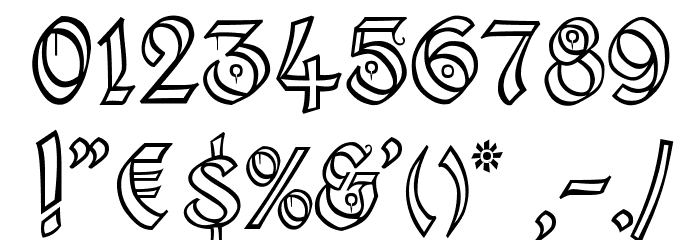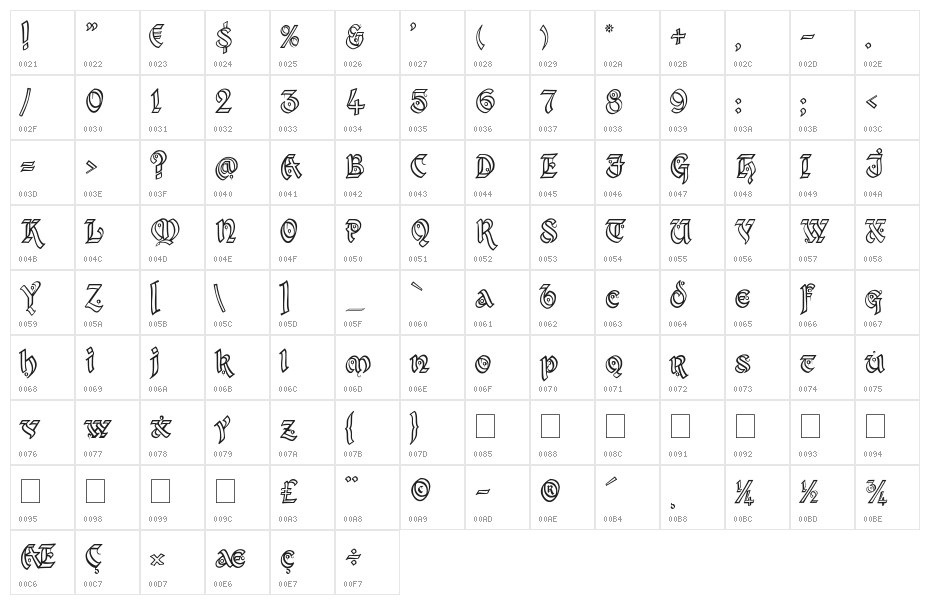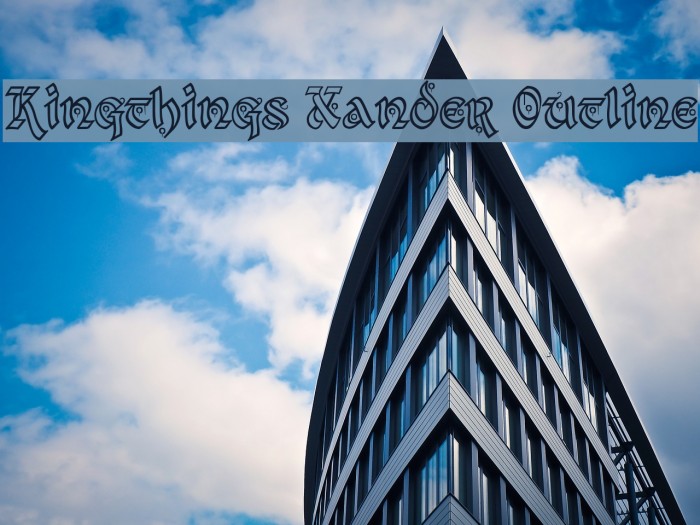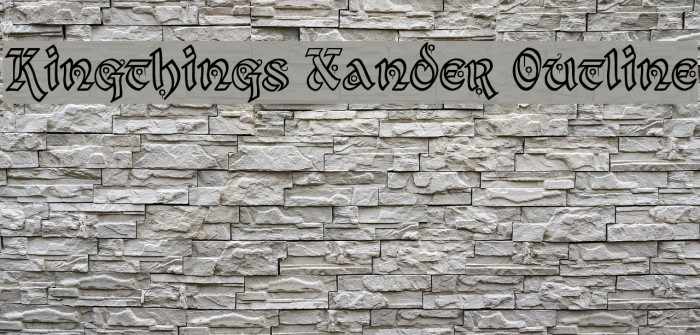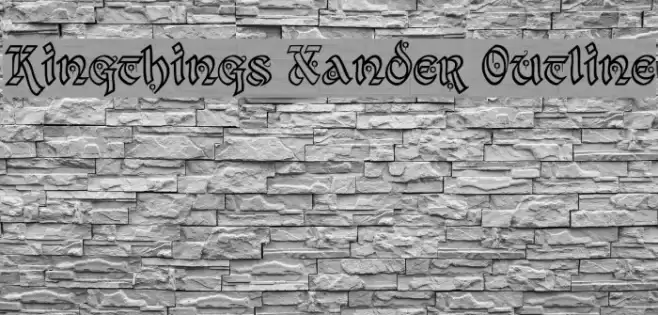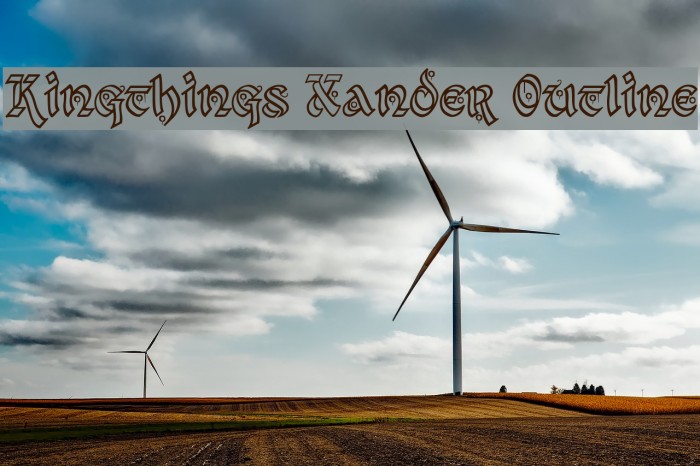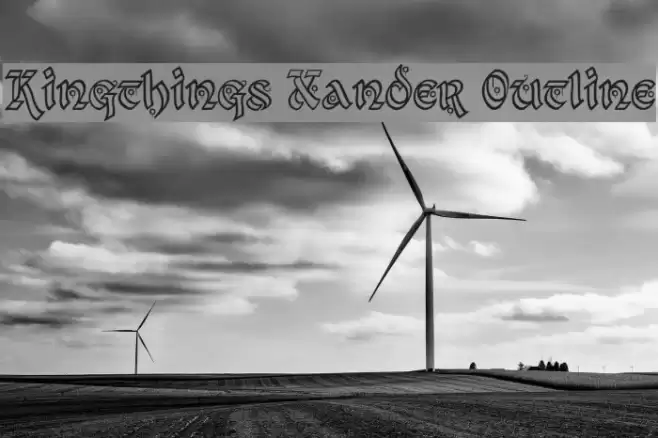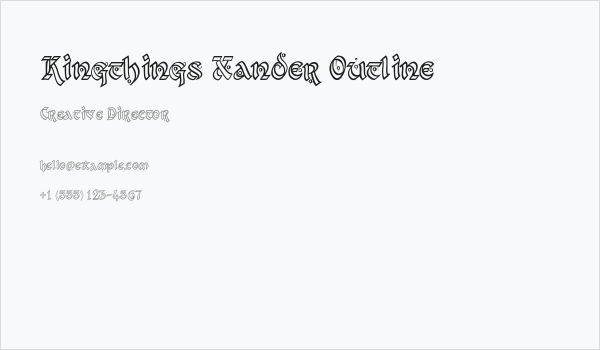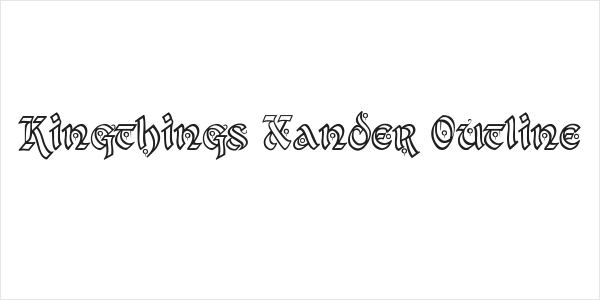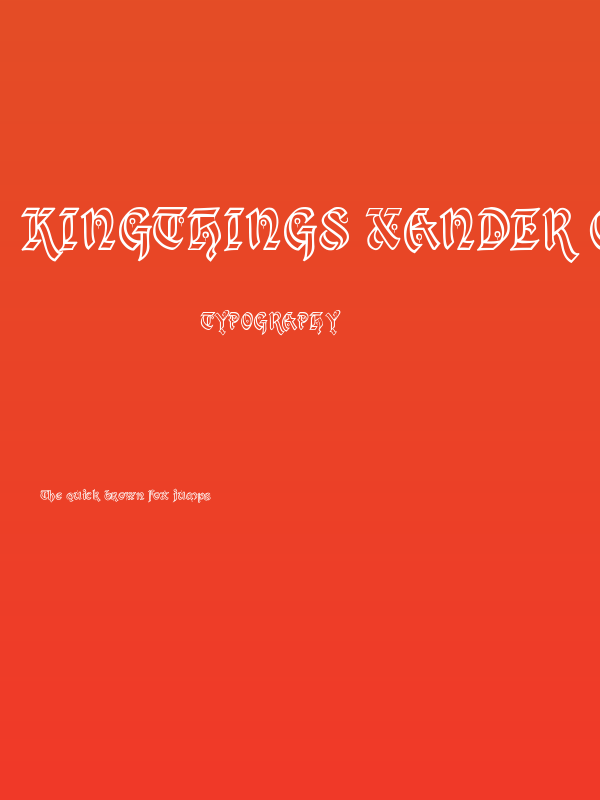
Kingthings Xander Outline Font
Kingthings Xander Outline Description
This font features a bold, outlined style with a distinct medieval and gothic influence. The characters are intricately designed with sharp angles and decorative elements, giving them a unique and ornate appearance. The uppercase letters are particularly striking, with elaborate flourishes and a strong presence. The lowercase letters maintain the same decorative style, ensuring consistency throughout. Numbers and special characters are equally detailed, making this font suitable for projects that require a dramatic and eye-catching typeface.
| Overall Style | Gothic, Medieval, Decorative |
| Proposed Projects | Ideal for fantasy-themed designs, book covers, posters, and branding that requires a dramatic and historical aesthetic. |